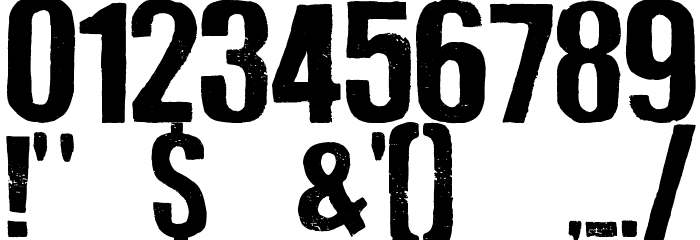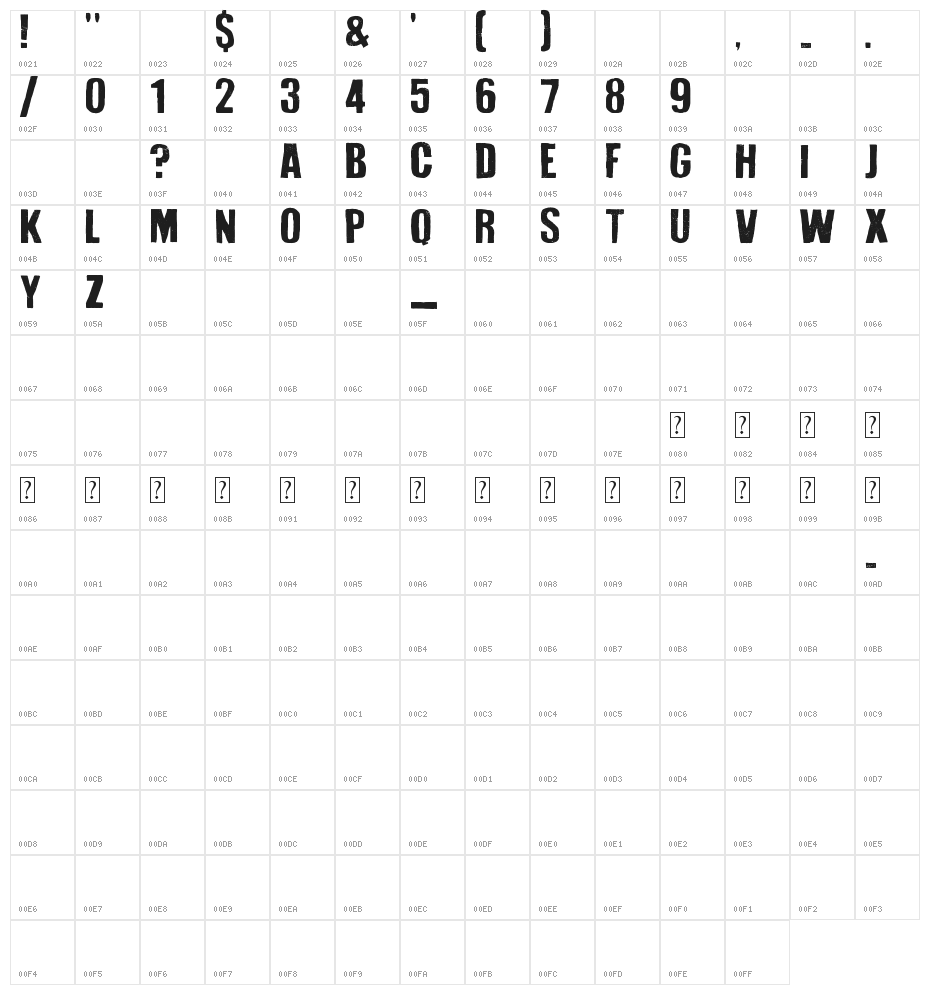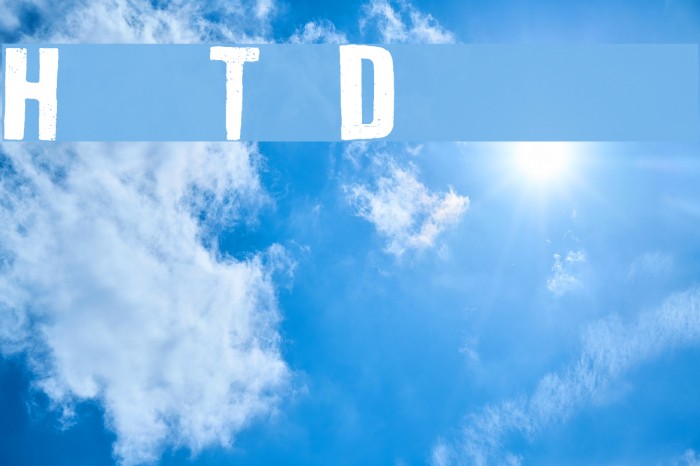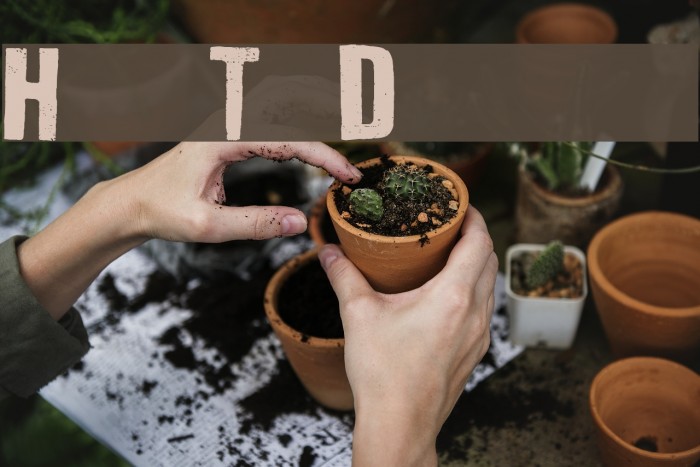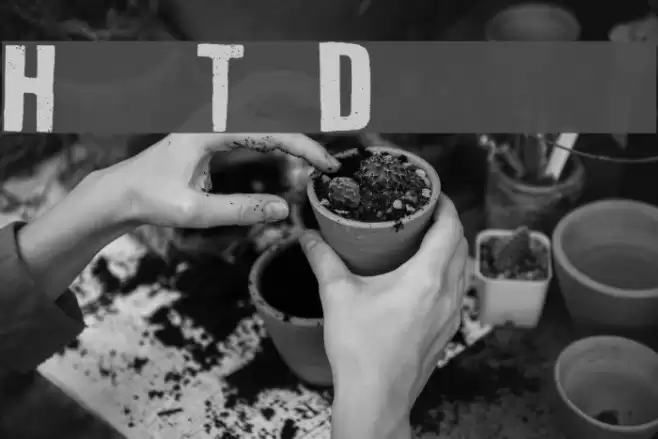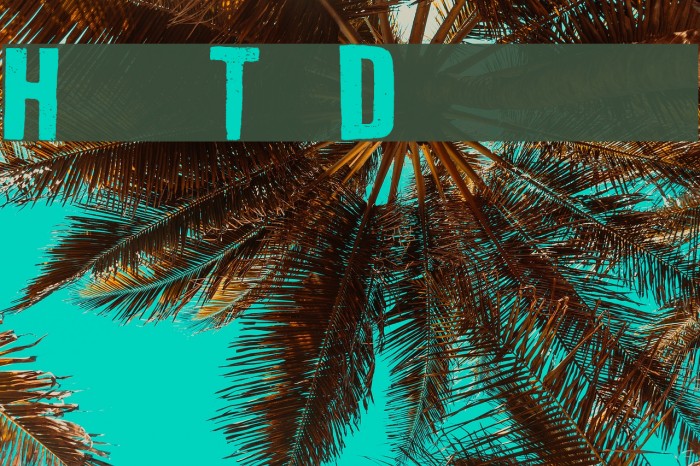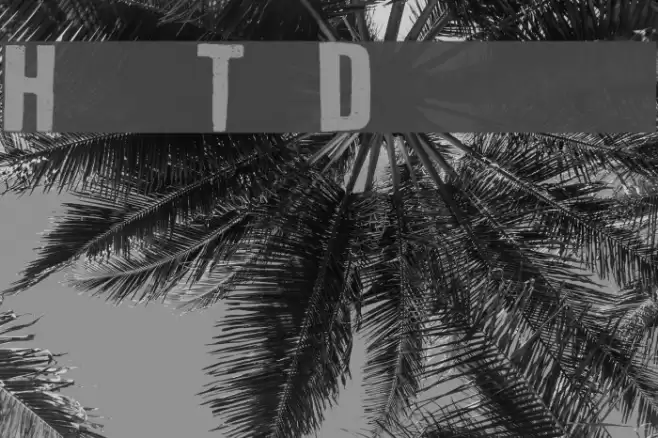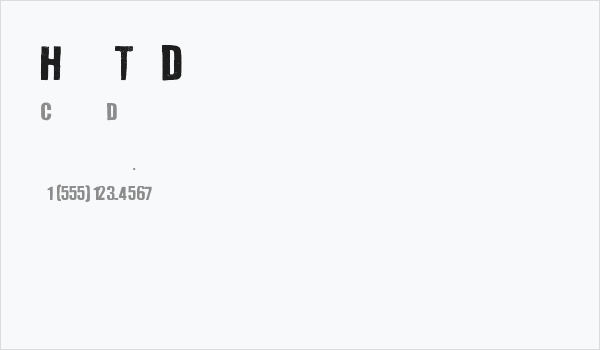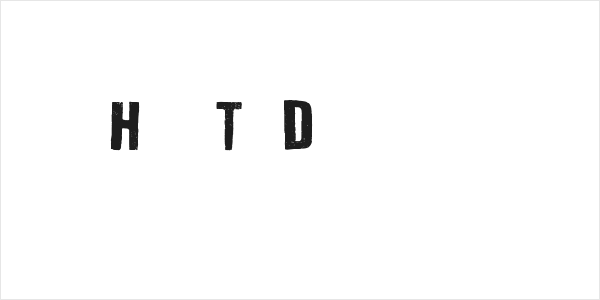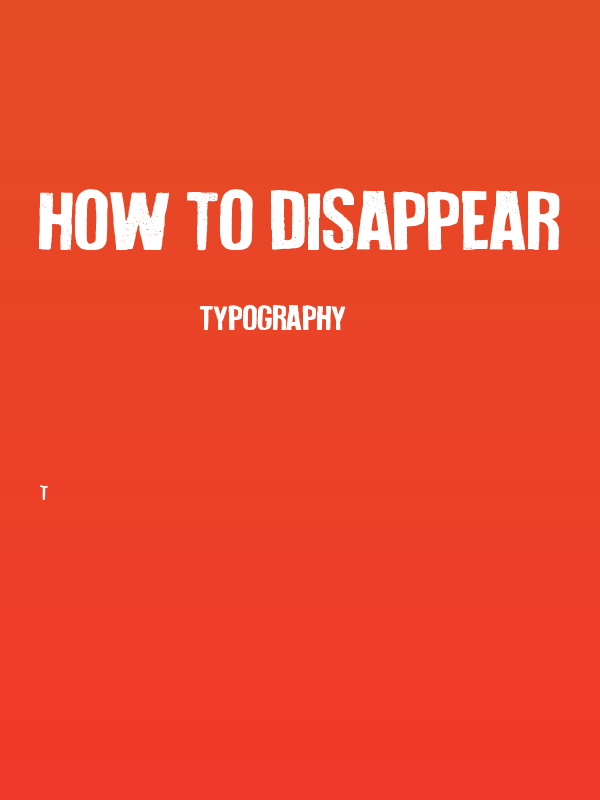
How To Disappear Font
How To Disappear Description
This font features a bold, distressed style with a rugged, textured appearance. The characters have a slightly uneven baseline, adding to the vintage and worn-out look. The uppercase letters are prominent and impactful, while the numbers and special characters maintain the same distressed aesthetic. The font's rough edges and irregularities give it a handcrafted feel, making it ideal for projects that require a rustic or industrial vibe. Its boldness ensures high visibility, making it suitable for attention-grabbing designs.
| Proposed Projects | Ideal for posters, album covers, branding for rustic or industrial-themed businesses, and any design requiring a vintage or handcrafted look. |